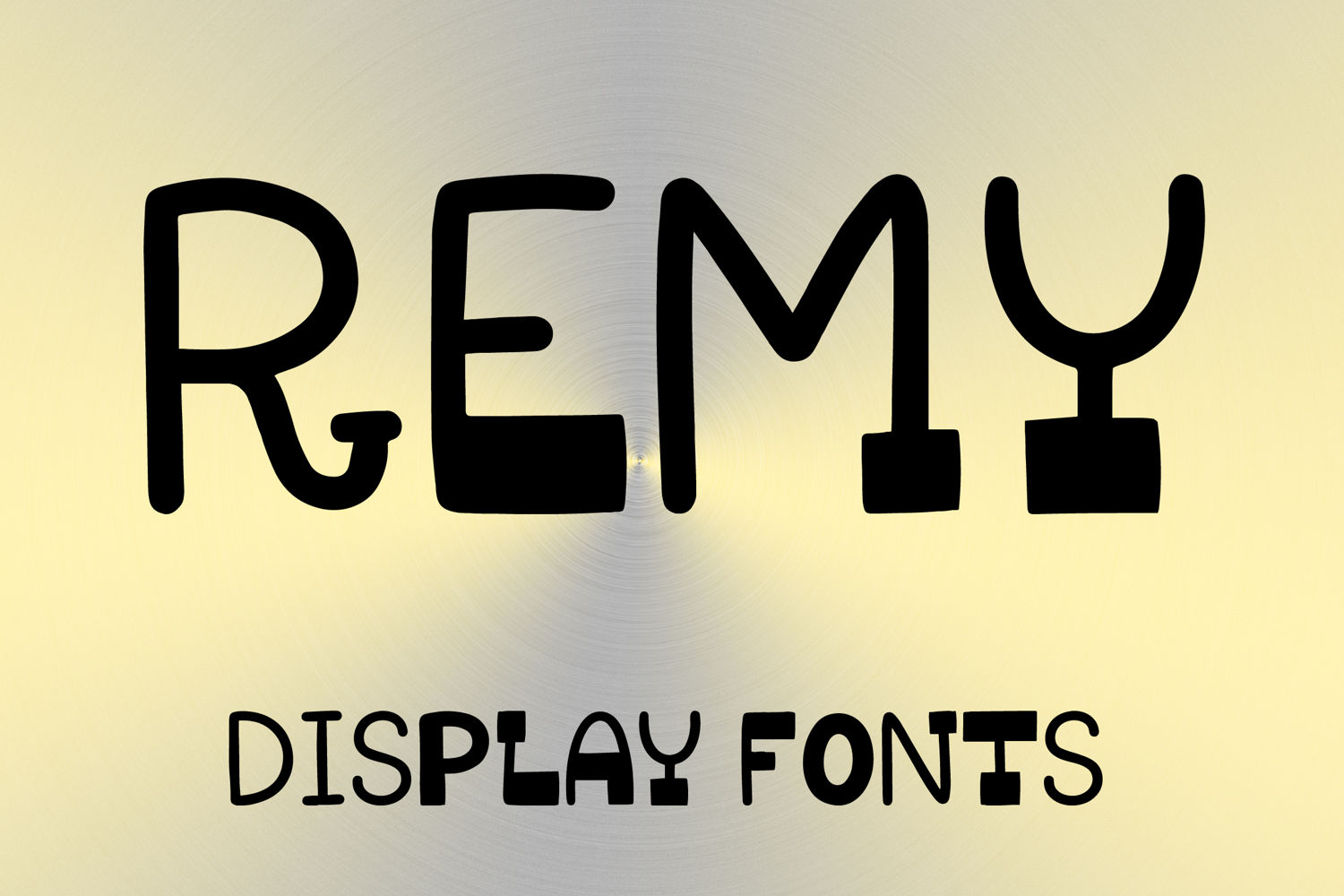
REMY
REMY is a playful display font with a quirky handcrafted style and modern artistic charm. Its uppercase letterforms feature slim strokes, rounded curves, and distinctive geometric base details that create a fun, stylish, and eye-catching look. Designed with uppercase letters A–Z and numbers 0–9, REMY is perfect for branding, posters, packaging, logos, social media graphics, and creative projects that need a fresh and memorable statement.